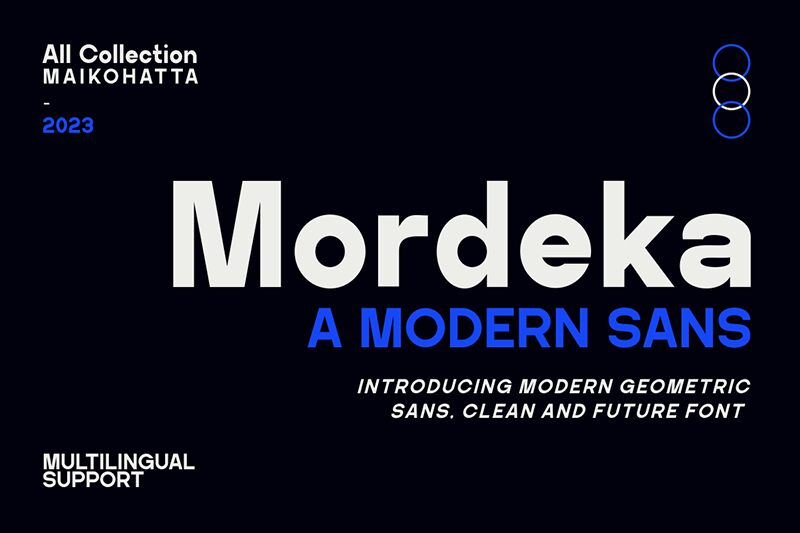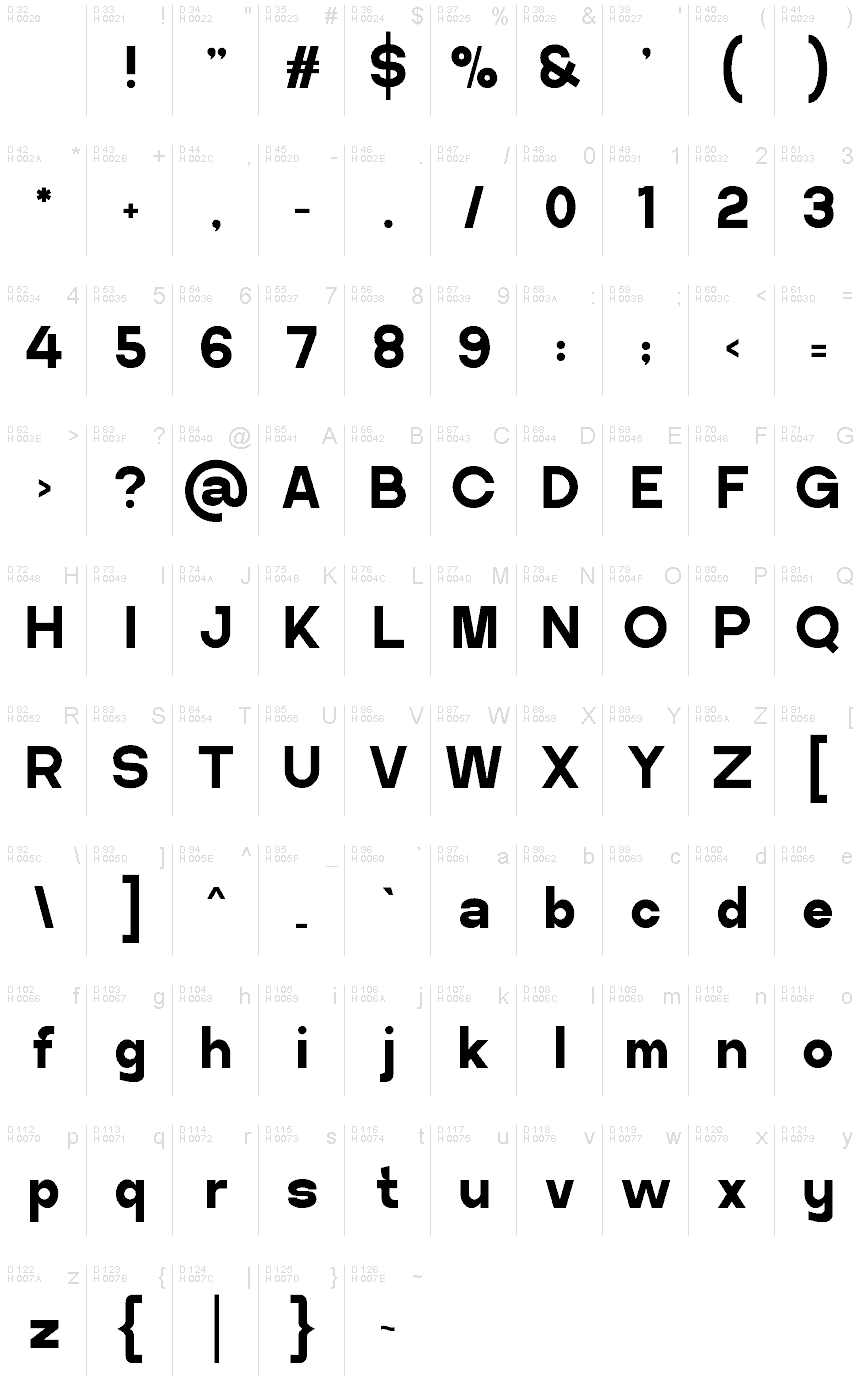
Mordeka
Mordeka font by Gilang Ternadho is a modern display sans-serif free font with incredibly clear and harmonious shapes. The characters have geometric elements that are easily readable and each of them is made with impeccable style. The general appearance and feel of the typeface are professional and strong, giving you multiple options for your design aesthetics.
Use Mordeka for titles, websites, magazines, logos, practices related to architecture or civil engineering, movie posters, product packaging designs including foods or electronic gadgets. It also fits automotive branding along with sportswear branding besides forming a flawless combo with classy interior designs.